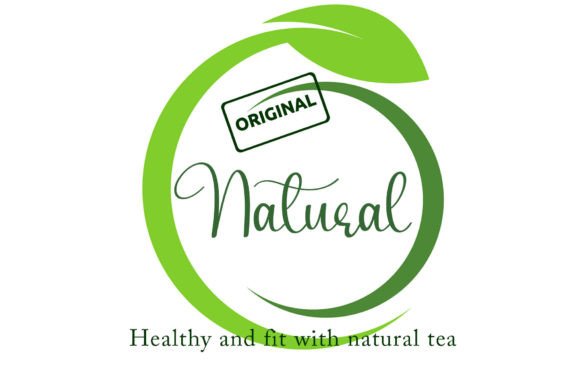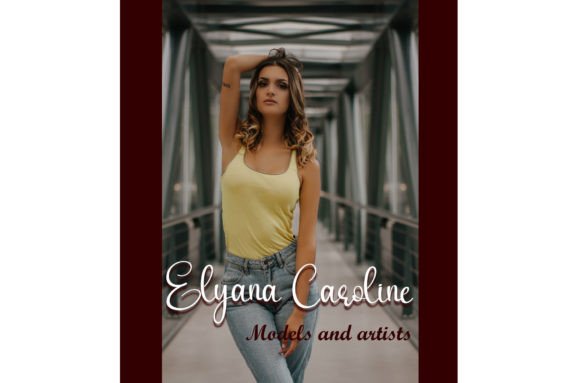
About Diary Font
**”Diary” Handwritten Font: Timeless Elegance for Your Designs**
“Diary” is a neat and beautiful handwritten font that embodies elegance and charm. With its distinct and timeless style, this font is perfect for a wide range of creative projects, allowing you to infuse a touch of sophistication into your designs. Here’s how you can utilize the “Diary” font to create exceptional and memorable pieces:
1. **Invitations:** Design elegant and stylish invitations for weddings, parties, or special events. The “Diary” font adds a classic and refined touch to your invitation cards.
2. **Greeting Cards:** Create heartfelt greeting cards for birthdays, holidays, or any occasion. The font’s timeless style enhances your heartfelt messages.
3. **Stationery:** Craft personalized stationery sets with the “Diary” font, perfect for handwritten notes, letters, and correspondence. It gives your stationery a touch of sophistication.
4. **Branding:** Use the font in your branding materials, such as logos, business cards, and letterheads. It conveys a sense of elegance and professionalism.
5. **Quotes:** Design visually appealing quote graphics for social media, posters, or merchandise. The “Diary” font’s timeless elegance enhances the impact of your quotes.
6. **Book Covers:** Create captivating book covers for novels, poetry collections, or non-fiction works. The font adds a touch of classic beauty to your literary creations.
7. **Art Prints:** Showcase your artwork with art prints featuring the “Diary” font. Its elegant characters complement various art styles and themes.
8. **Wedding Announcements:** Announce your engagement or share wedding details with beautifully designed cards and announcements, elevated by the font’s elegance.
9. **Menu Design:** Design menus for upscale restaurants or special events. The “Diary” font enhances the dining experience with its timeless appeal.
10. **Product Packaging:** Elevate the packaging of luxury products, such as perfumes, chocolates, or fine wines, with the “Diary” font for a touch of refinement.
11. **Corporate Presentations:** Use the font in corporate presentations to convey professionalism and sophistication, making a lasting impression on your audience.
12. **Magazine Headings:** Incorporate the font in magazine headings and headlines to create a bold and classic look for your editorial content.
13. **Logo Design:** Create logos for boutique businesses, high-end brands, or creative ventures that require an elegant and timeless identity.
14. **Fashion Labels:** Apply the font to clothing labels, hang tags, and branding materials for fashion brands that embrace classic and refined aesthetics.
15. **Fine Art Exhibitions:** Use the font in promotional materials for art exhibitions or cultural events to convey a sense of artistic sophistication.
16. **Website Headers:** Incorporate the font in website headers to make a striking and timeless statement on your web pages.
17. **Luxury Packaging:** Enhance the branding and packaging of luxury items, such as jewelry, watches, or premium accessories, with the “Diary” font. It exudes opulence.
18. **Boutique Hotels:** Use the font in branding materials for boutique hotels and upscale accommodations to create a refined and inviting ambiance.
“Diary” offers a captivating blend of timeless elegance and handwritten charm, making it a versatile choice for various design projects. Its unique and classic style adds depth and sophistication to your creative work, leaving a lasting impression on your audience. Fall in love with the “Diary” font’s distinct and timeless beauty as you use it to create spectacular designs that stand the test of time.